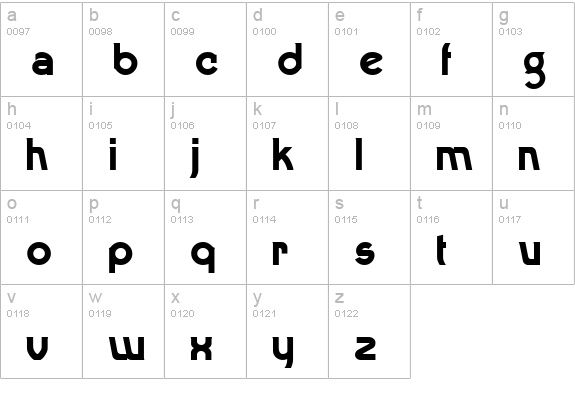
Dingaling Regular is the standard, neutral variant in the Dingaling typeface family \xE2\x80\x94 well suited to general body text, paragraphs, and standard typographic work.
Dingaling Regular font is a playful and whimsical typeface that adds a touch of fun to any design project. With its rounded edges and quirky shapes, this font is perfect for creating eye-catching headlines, posters, and logos. Whether you're working on a birthday invitation or a children's book cover, Dingaling Regular is sure to bring a sense of charm and personality to your designs. The best part? Dingaling Regular font is completely free to download at FontsMarket.com. You can easily access this delightful typeface and start using it in your creative projects without any cost. So why wait? Add a touch of playfulness to your designs with Dingaling Regular today!